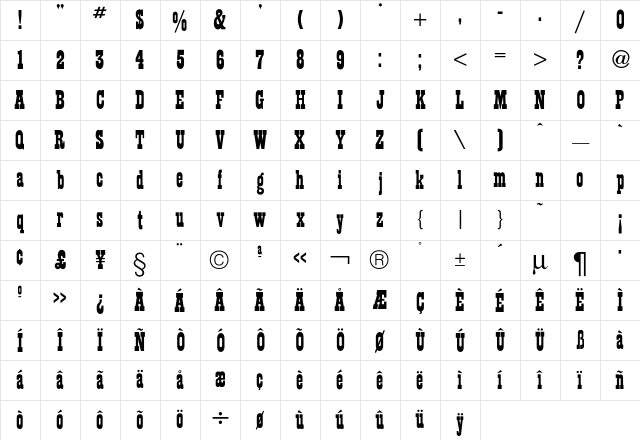
Playbill ICG Free Font
Playbill ICG
Style: ICG
Design Context for Playbill
Playbill is a composed and adaptable typeface that performs quietly and consistently across a wide range of design contexts.